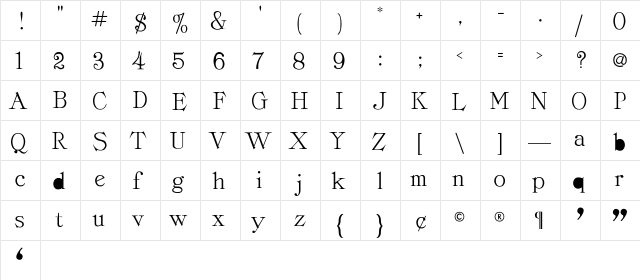
RSClassicaRoman Regular
Design Context for RSClassicaRoman Typeface
RSClassicaRoman wears its vintage influences proudly, with letterforms that recall mid-century signage, classic packaging, and nostalgia-driven design.
Font Pairing: Combine RSClassicaRoman with a simple slab or neutral sans — period-accurate companions reinforce the vintage feel without competing for attention.
Pro Tip: Use RSClassicaRoman for headlines and pull quotes rather than body copy — its personality is best appreciated in short, focused bursts.